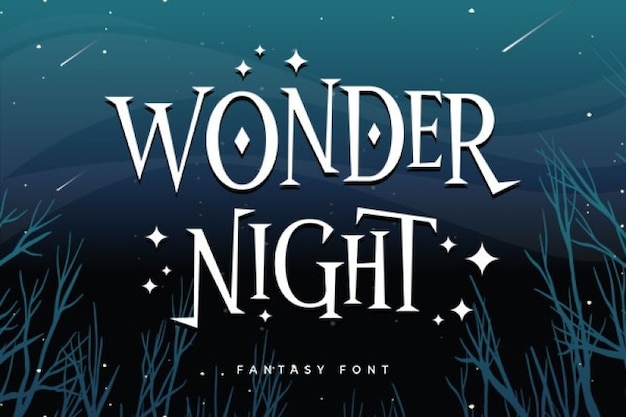
Wonder Night Font
We are at a loss for words to describe the je ne sais quoi of this magical Wonder Night font. Its bouncy, irregular style and its sleek serif strokes blends into a combination of fun and elegant. It's a perfect choice for any format related to fantasy and even horror books, movies or presentations. This all-caps typeface comes with uppercase and lowercase variations. Download it from Freepik now!